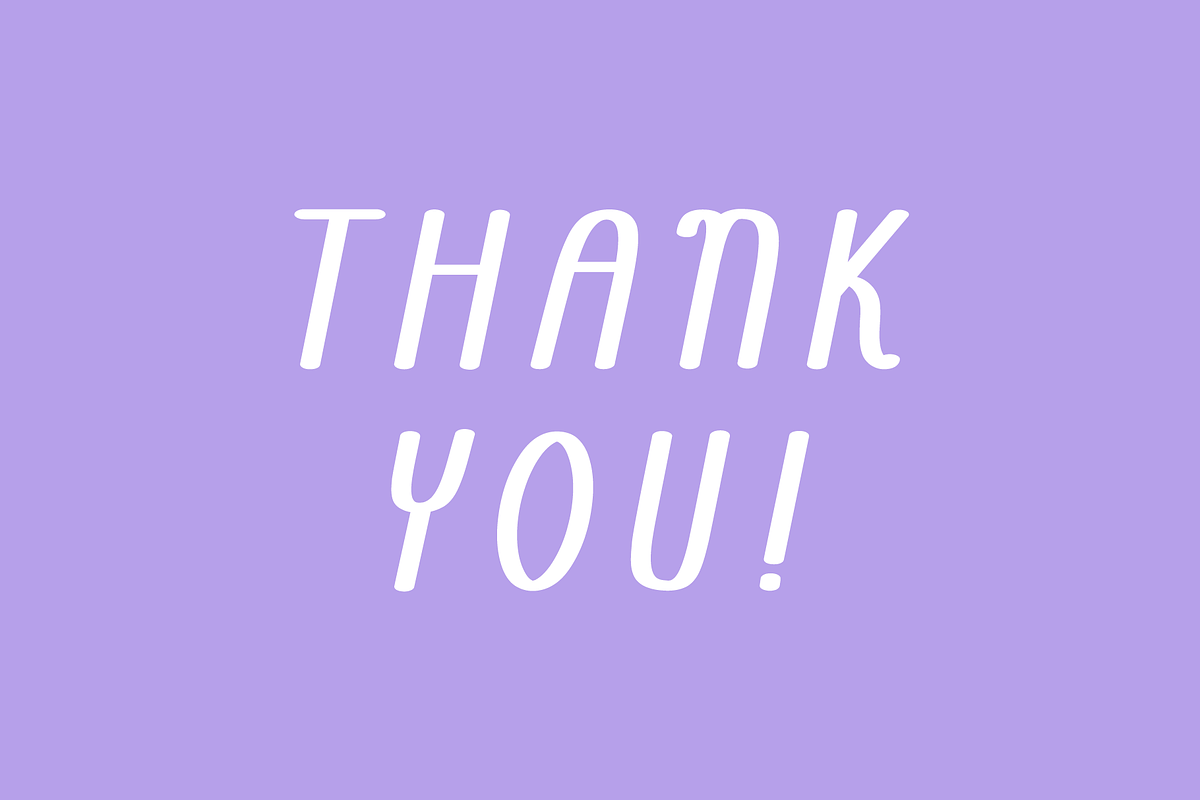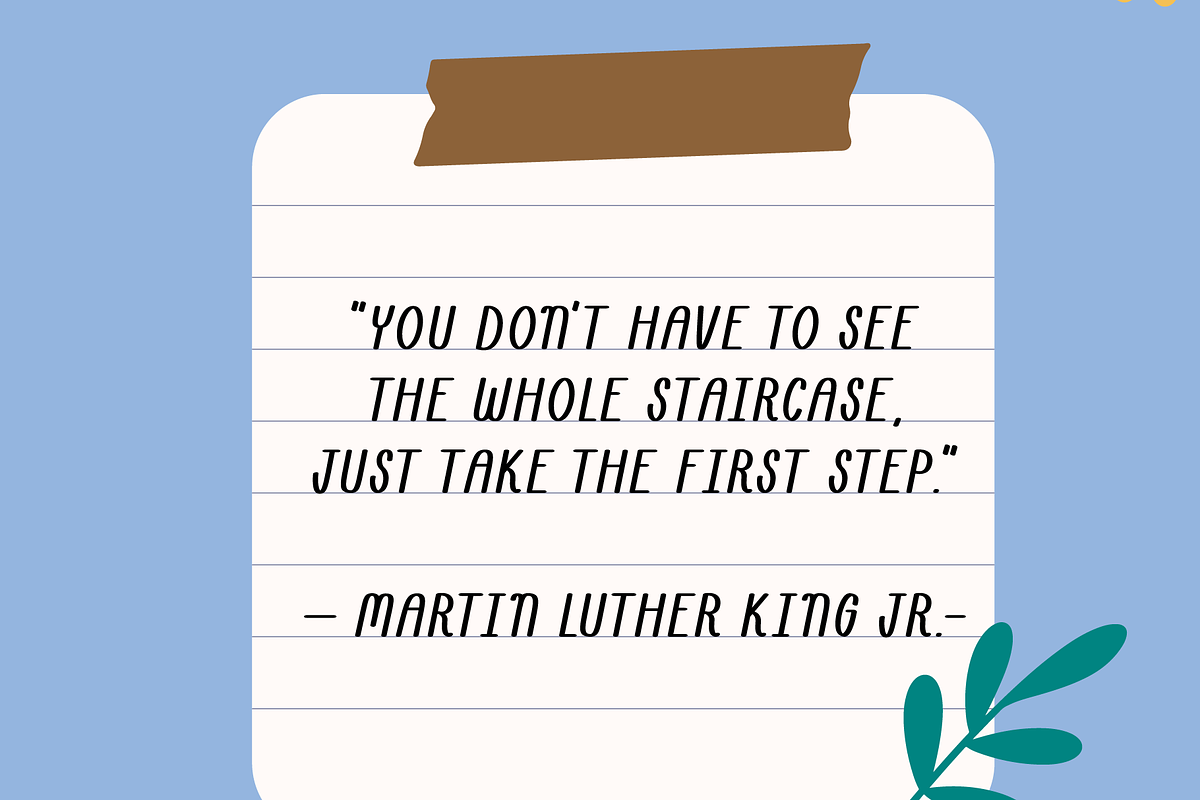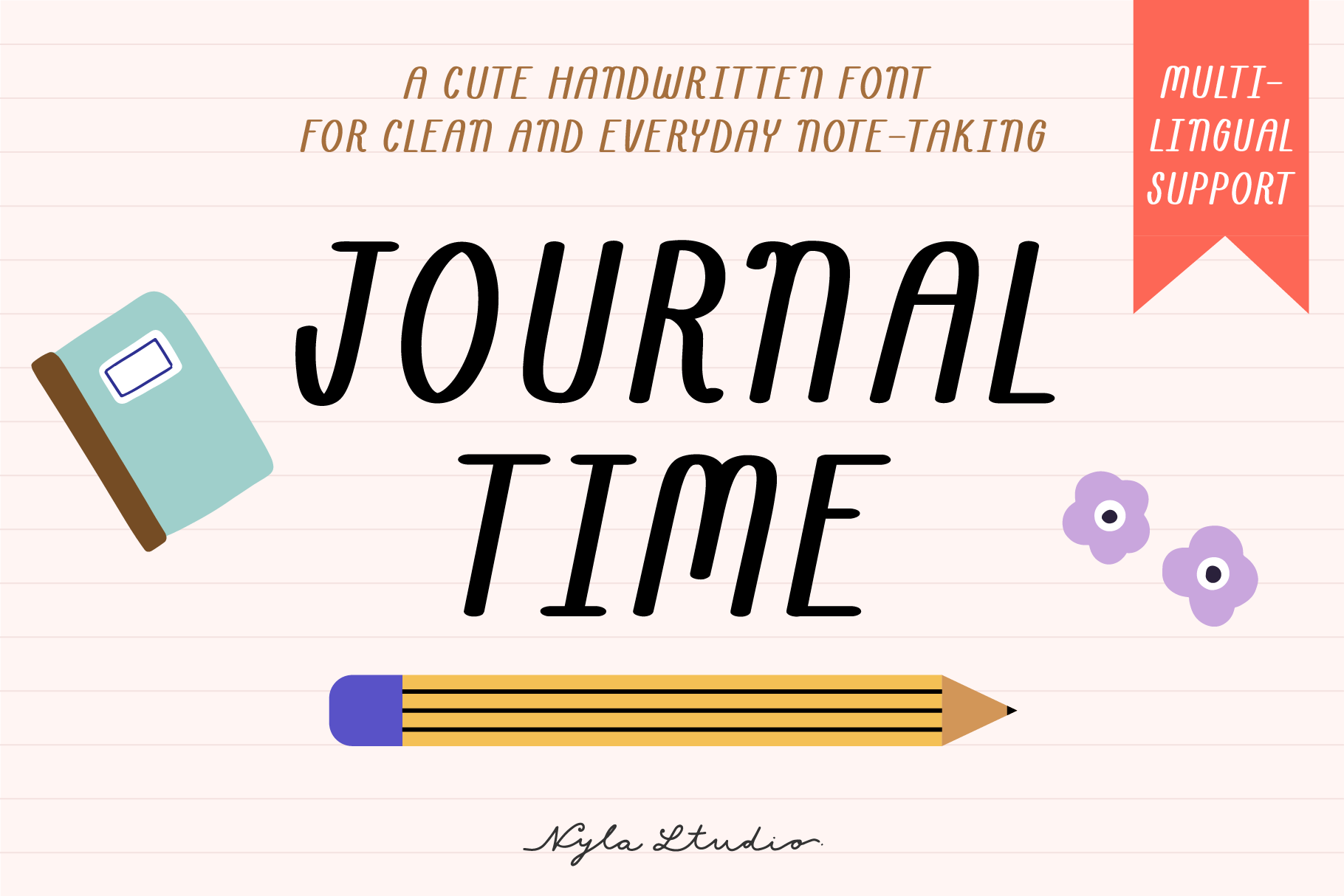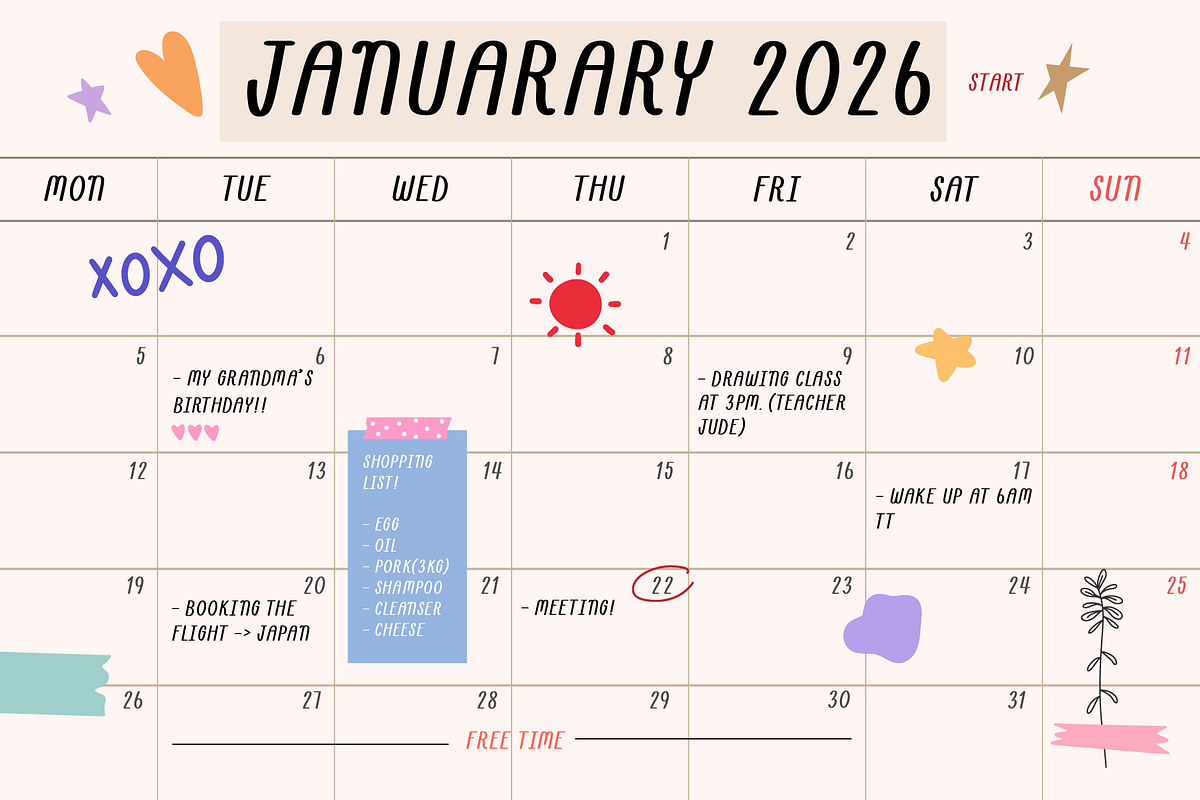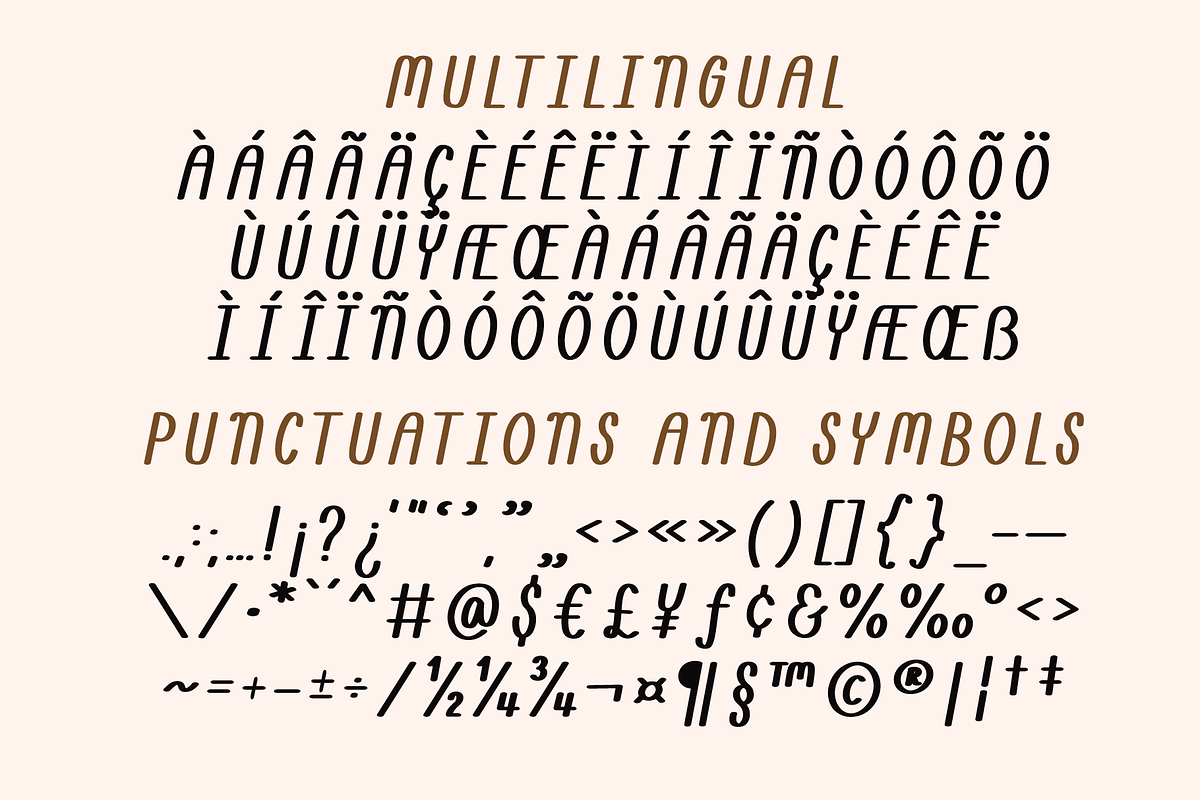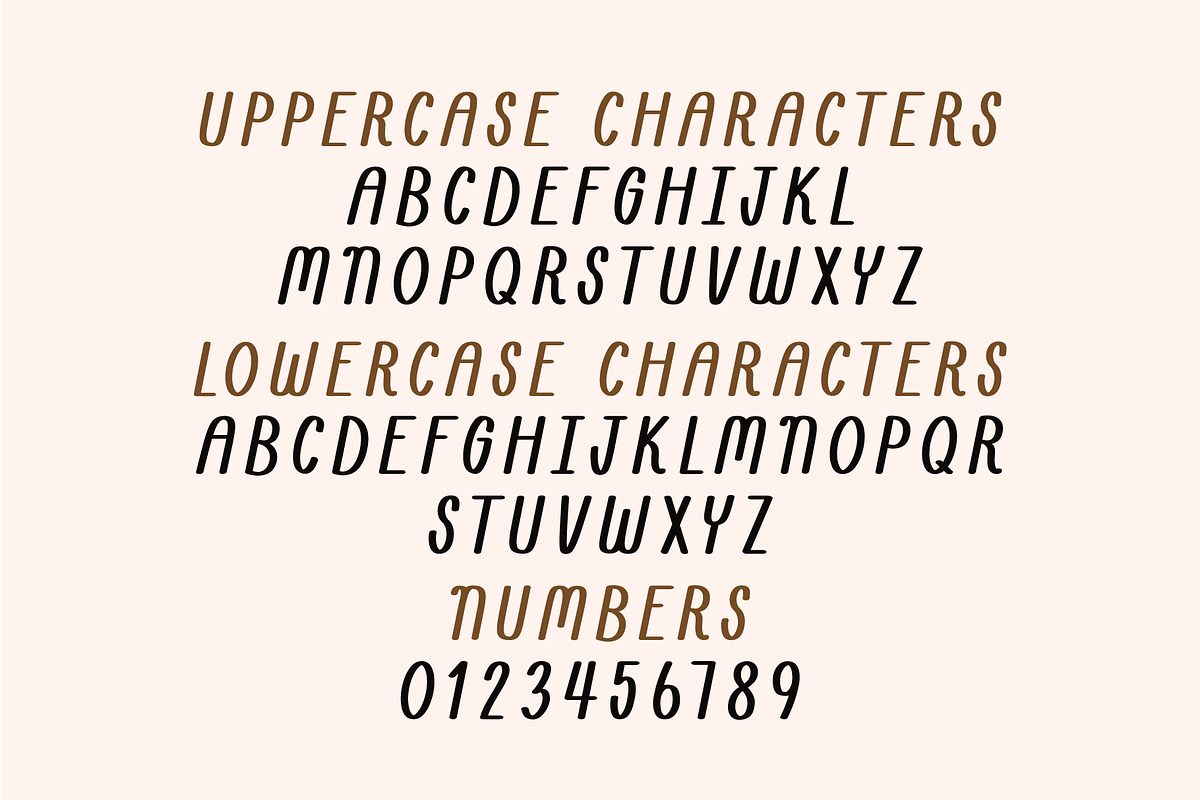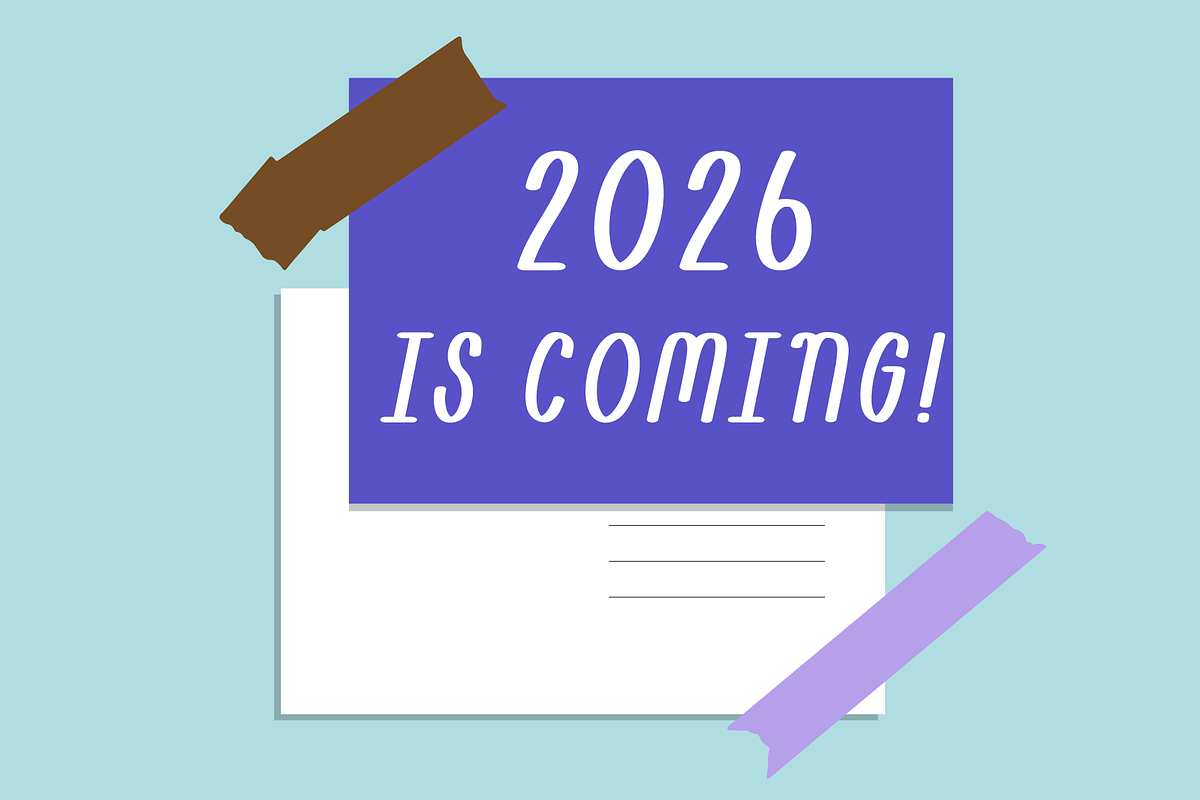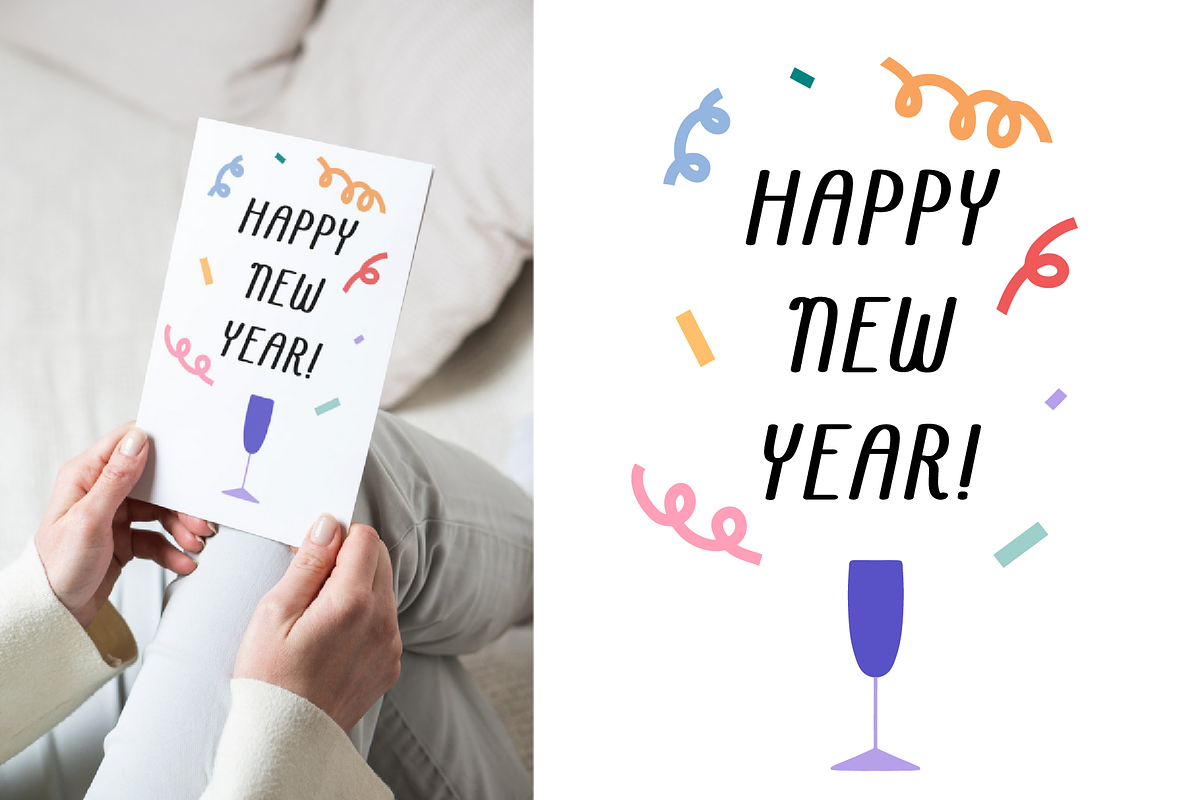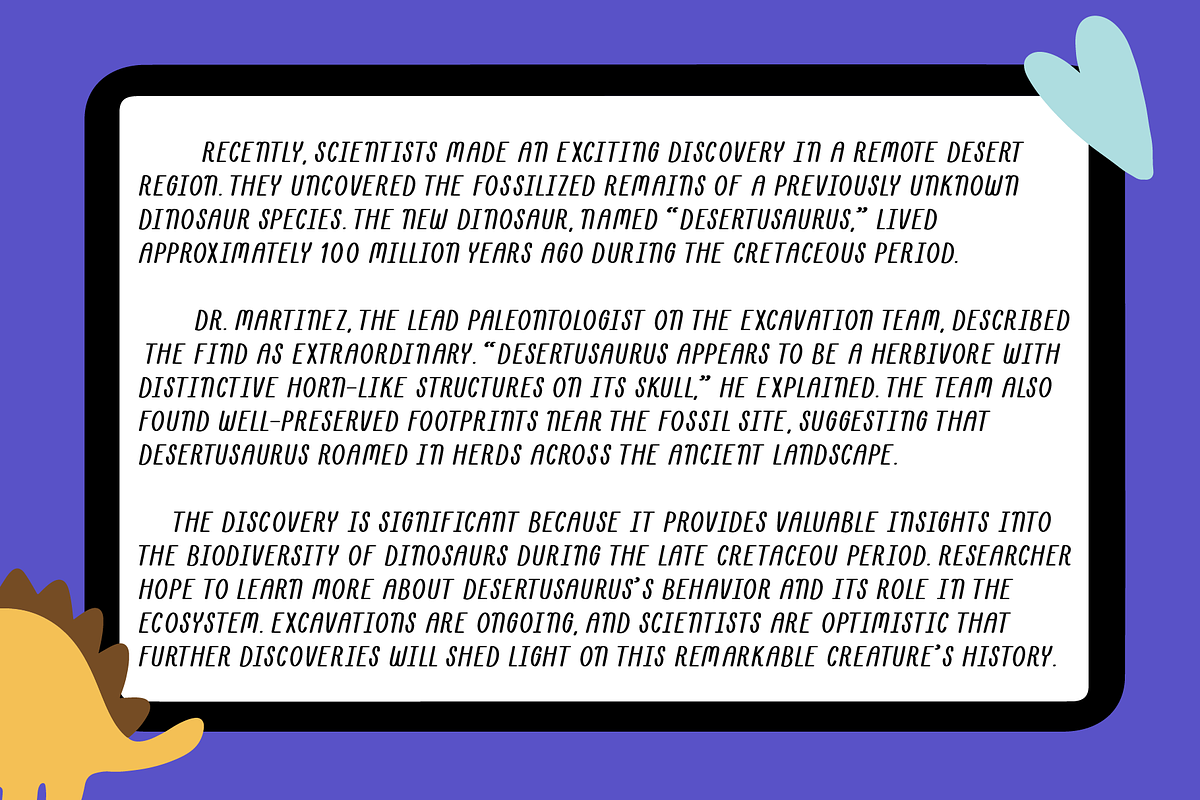
Journal time font
JOURNAL TIME is a neat and cute handwritten font. Perfect for everyday note taking such as writing diary or note, creating posters, logos, greeting cards, packaging and so much more!
Journal time Font Features
- Extended punctuation.
- Multilingual Characters support.